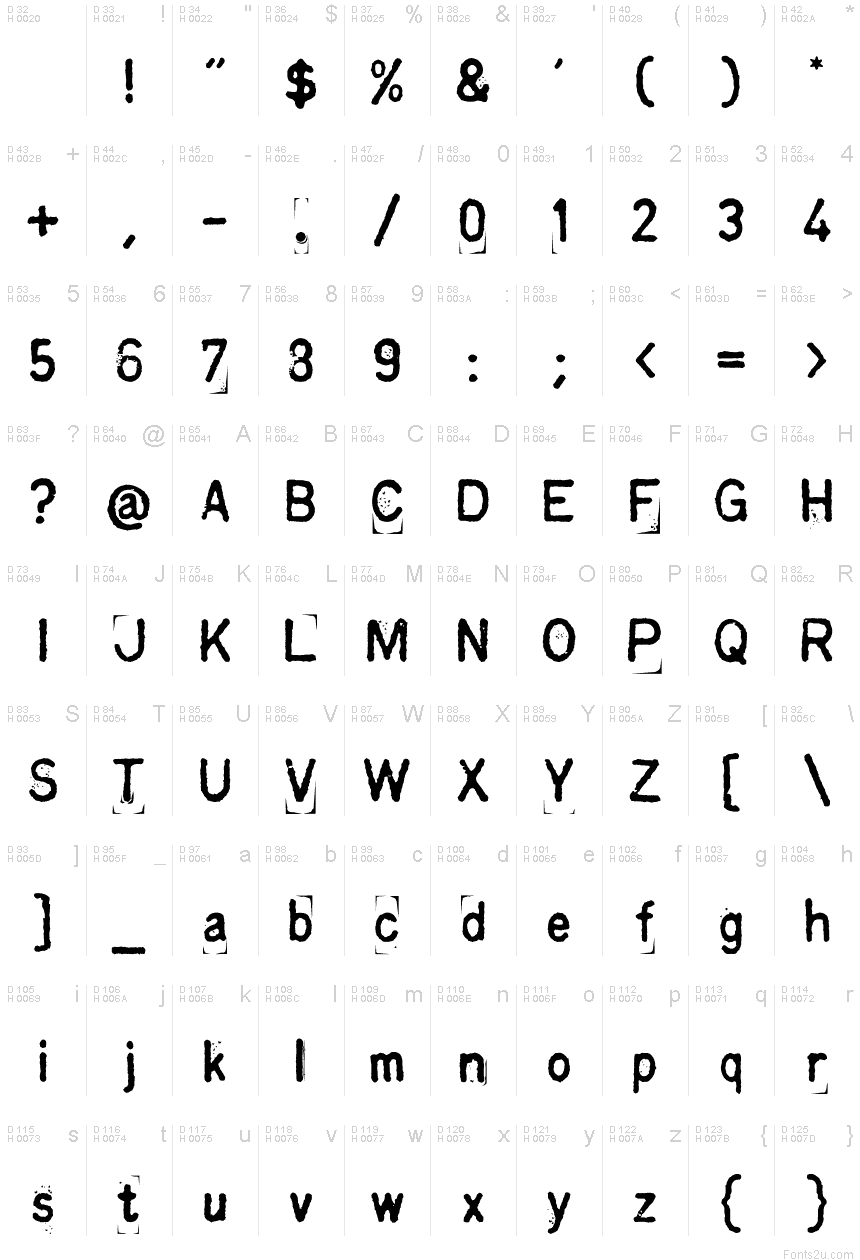
Kingthings Printingkit
Kingthings Printingkit font by Kevin King is a free distorted display typeface that looks like it’s been slammed onto paper with a worn rubber stamp. Letters are chunky, ink-soaked, and slightly misaligned, with rough edges and accidental flecks that feel straight out of a photocopied zine or a letterpress workshop. The result is loud, tactile typography that instantly adds grit and human messiness to otherwise clean layouts.
Using Kingthings Printingkit, you can nail artwork for band posters, underground flyers, horror titles, zines, escape-room graphics, and grungy packaging without having to fake texture in Photoshop. This free font shines at larger sizes where the blotchy ink and rough counters really show, and it pairs well with a simple geometric sans for body copy. Try it on stark black-and-white layouts or muted, paper-like backgrounds to push that raw, printed-by-hand vibe even further.